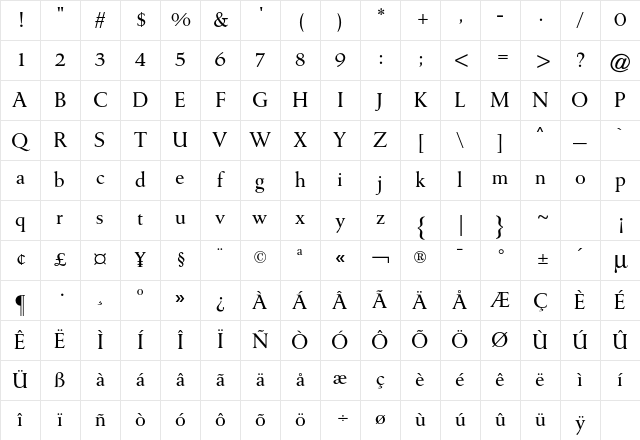
Holland Seminar CG Regular
Foundry: Miles Inc
Design Context for Holland Seminar CG
Holland Seminar CG is a composed and adaptable typeface that performs quietly and consistently across a wide range of design contexts.